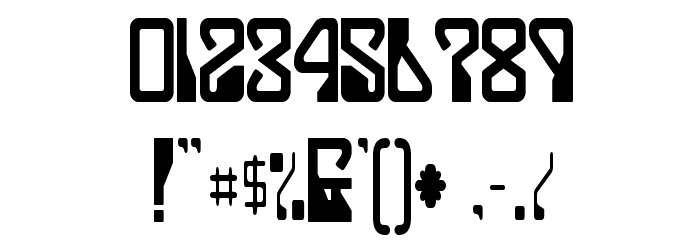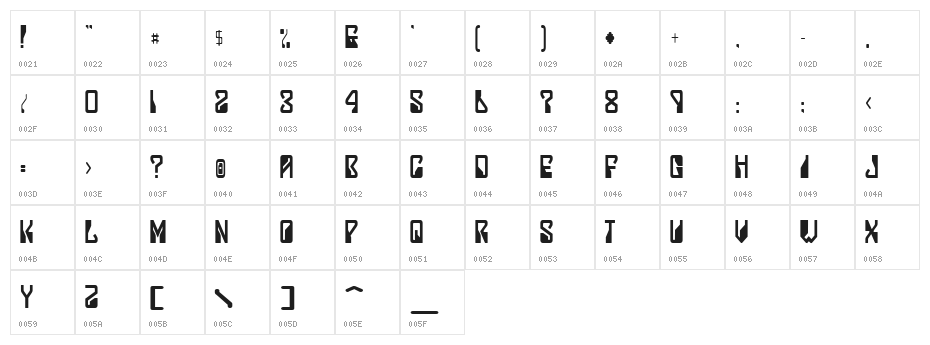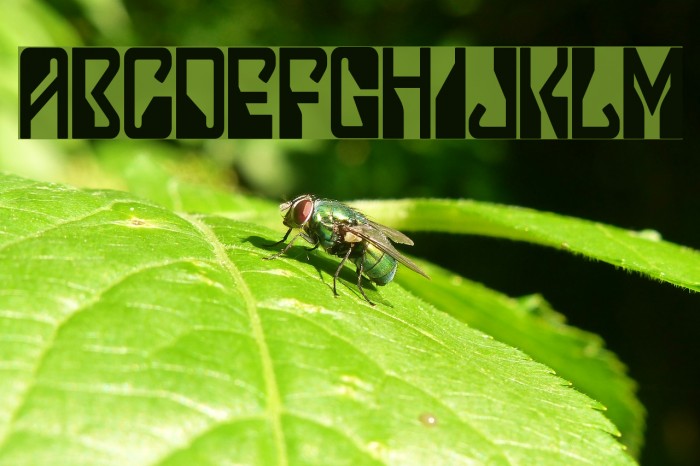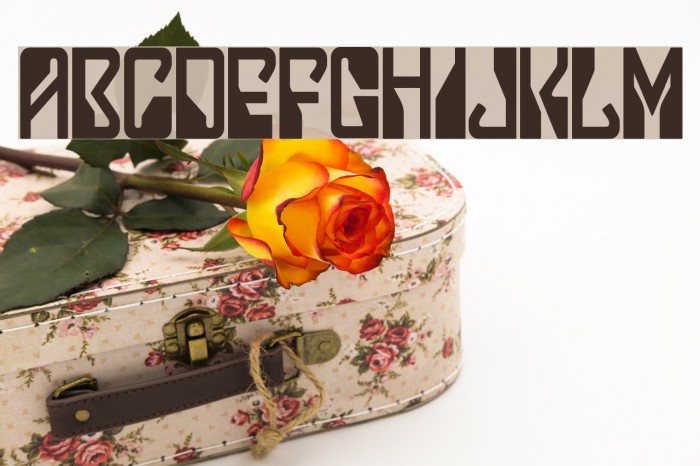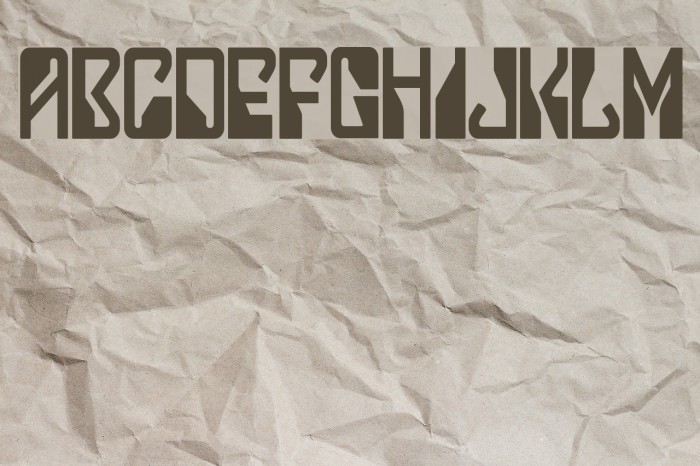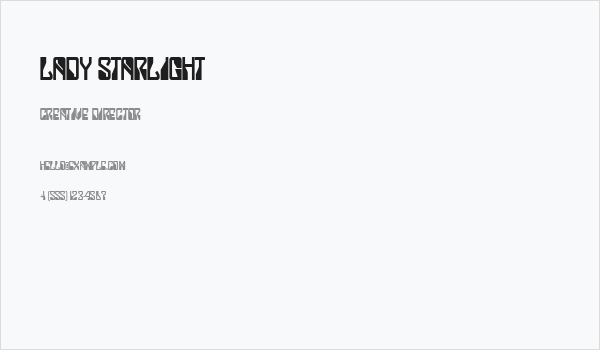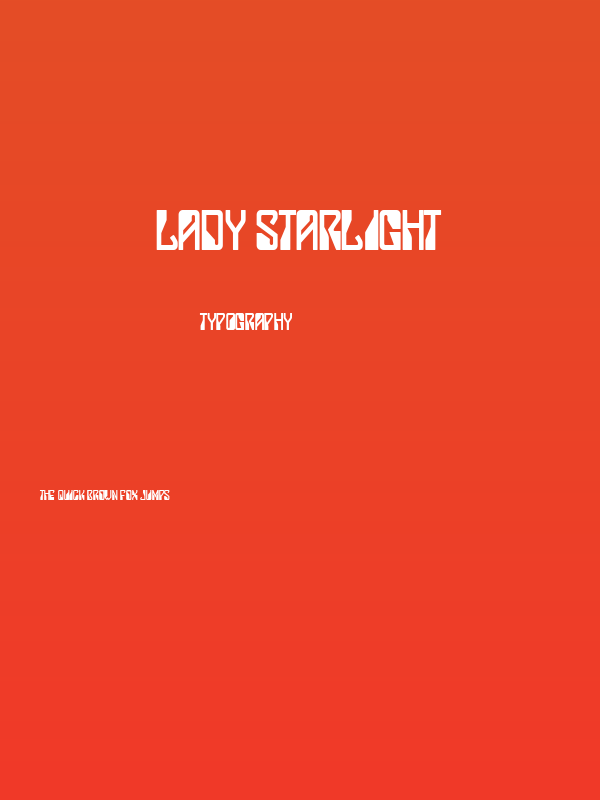
Lady Starlight Font
Lady Starlight Description
This font features a bold and geometric design with a futuristic flair. Each character is crafted with sharp angles and unique cutouts, creating a striking visual impact. The uppercase letters are particularly distinctive, with a strong presence that commands attention. The numbers and special characters maintain the same bold style, ensuring consistency across all text elements. This font's design is both modern and edgy, making it suitable for projects that require a bold statement.